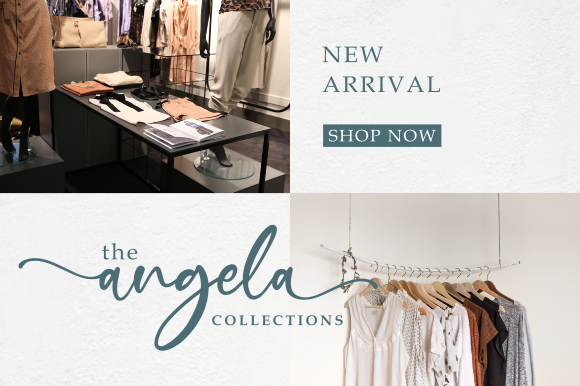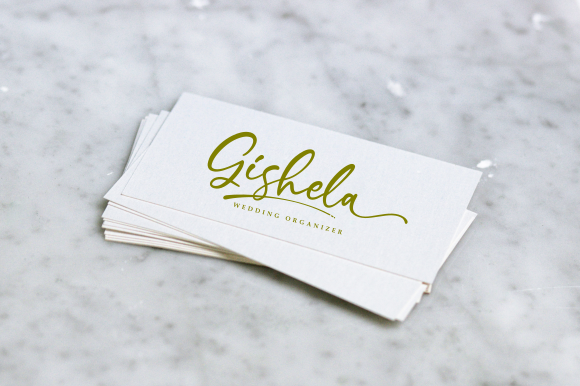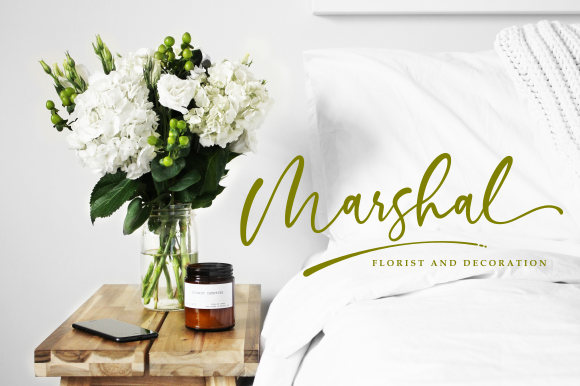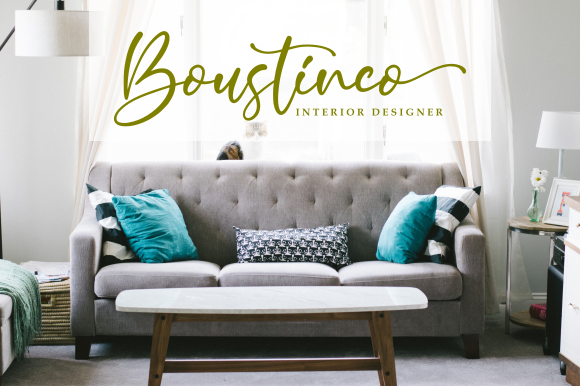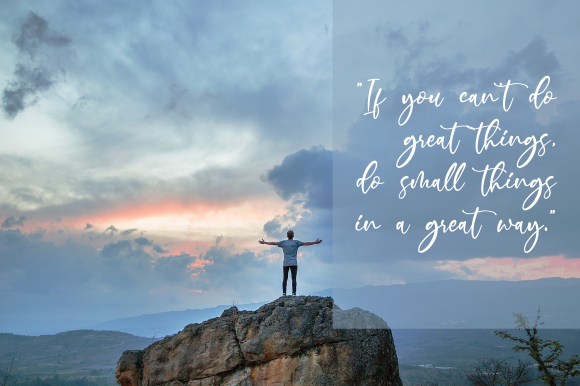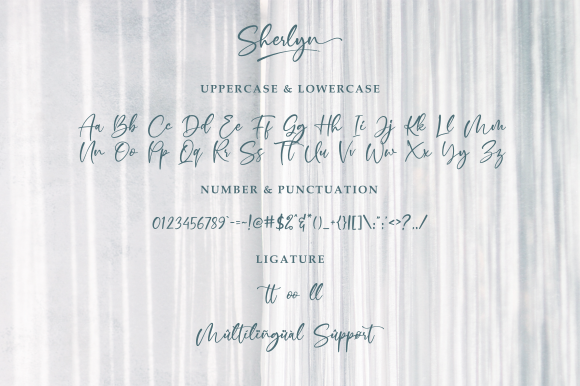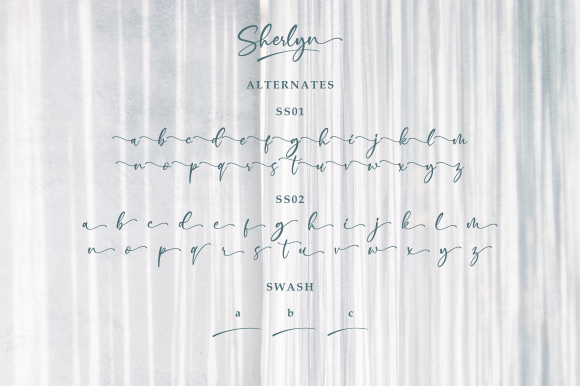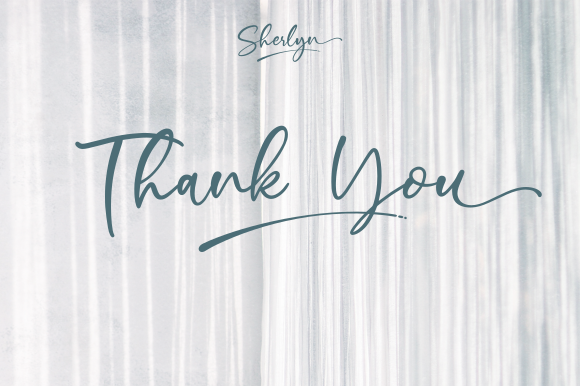
HomeScript FontsSherlyn Font Script Fonts Sherlyn Font FacebookXPinterestWhatsApp Sherlyn Font Poster 2 Sherlyn Font Poster 3 Sherlyn Font Poster 4 Sherlyn Font Poster 5 Sherlyn Font Poster 6 Sherlyn Font Poster 7 Sherlyn Font Poster 8 Sherlyn Font Poster 9 About Sherlyn Font Sherlyn is a sweet and distinctly modern script with a unique style. DOWNLOAD NOW People also explored Bigcake Font Normaliq Font Pumpkin Monogram Font Blue Point Holystails Font Bilsstwin Font Monday Monogram Font Kolari Adilla and Rita Font 308 0 TagsSherlyn Font Previous articleThe Fraga Script FontNext articleMandala Font LEAVE A REPLY Cancel reply Comment: Please enter your comment! Name:* Please enter your name here Email:* You have entered an incorrect email address! Please enter your email address here Website: Save my name, email, and website in this browser for the next time I comment. Personal Use Free Callisa Script Personal Use Free Read more about this font Better Together Duo Personal Use Free Read more about this font BD Lofi Personal Use Free Read more about this font Dealisya Personal Use Free Read more about this font BLOG The 10 Best Handwriting Fonts to Add Personality to Your Designs 10 of the Best Handwriting Fonts for Adding Personality to Your Designs There will undoubtedly be no other better choice than handwriting fonts to give... Free vs Paid Fonts: Why Investing in Premium Fonts Is Worth It Free Fonts Risk: Why Free Fonts Can Be Dangerous for Designers Where to Buy American Fonts Online in 2024